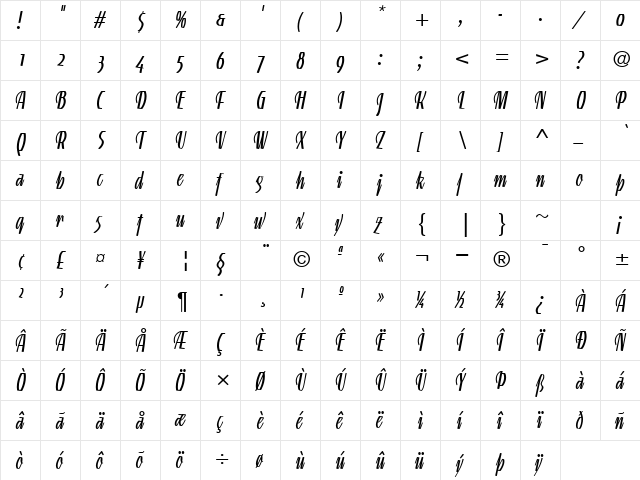
LTGneisenauette LightAlt Regular
Design Context for LTGneisenauette LightAlt Typeface
LTGneisenauette LightAlt offers clean, dependable letterforms without strong stylistic allegiance, making it a practical choice for designers who need flexibility. The delicate stroke weight brings airiness and refinement to layouts.